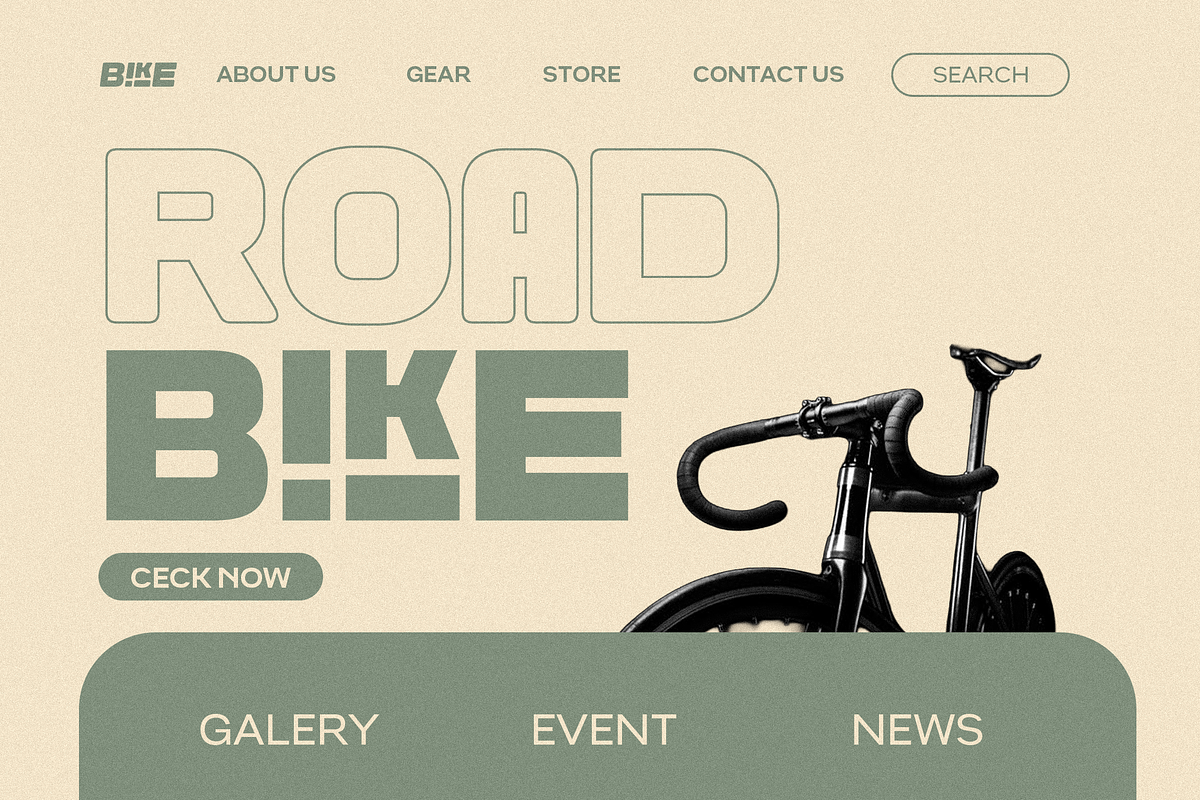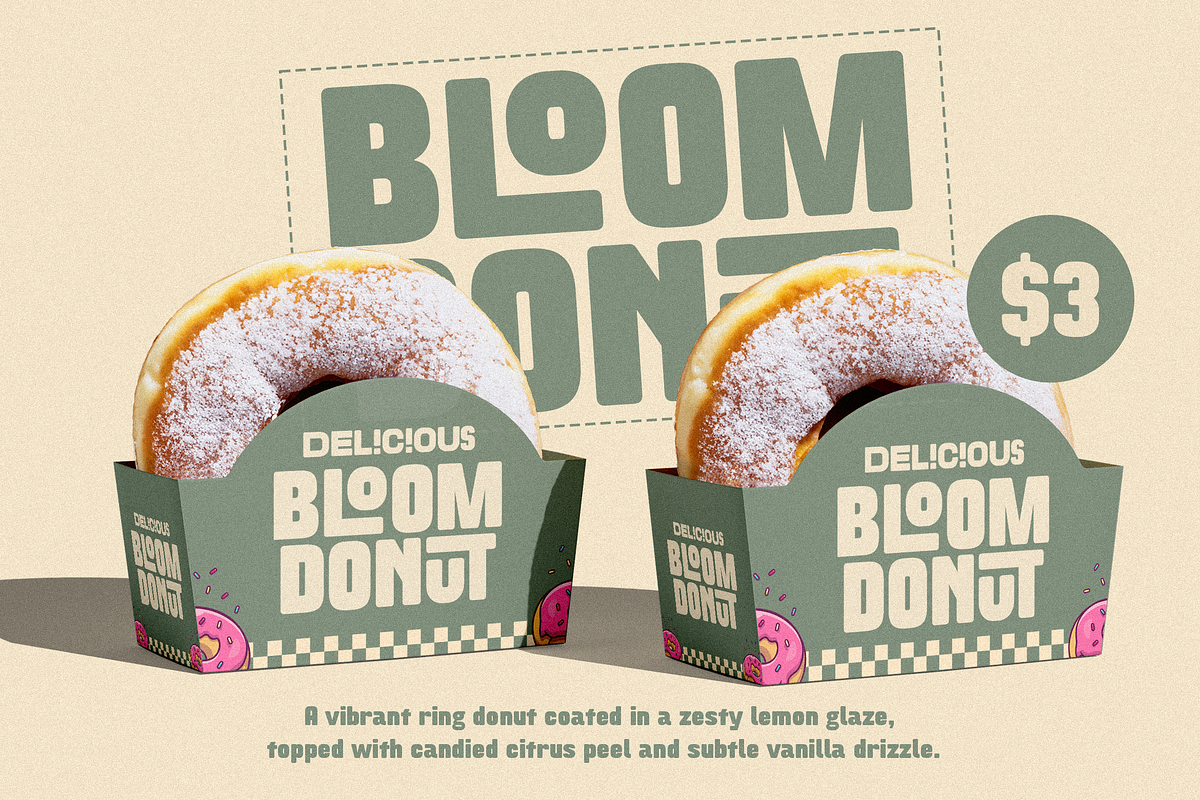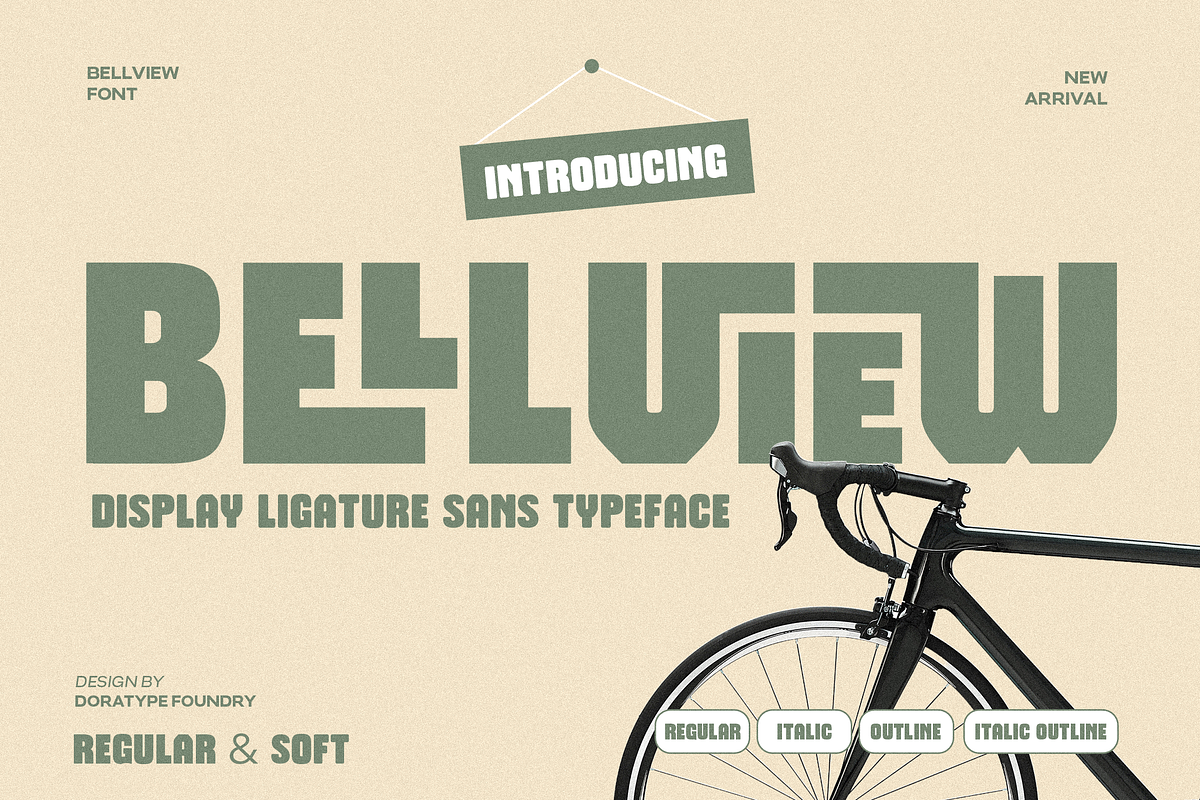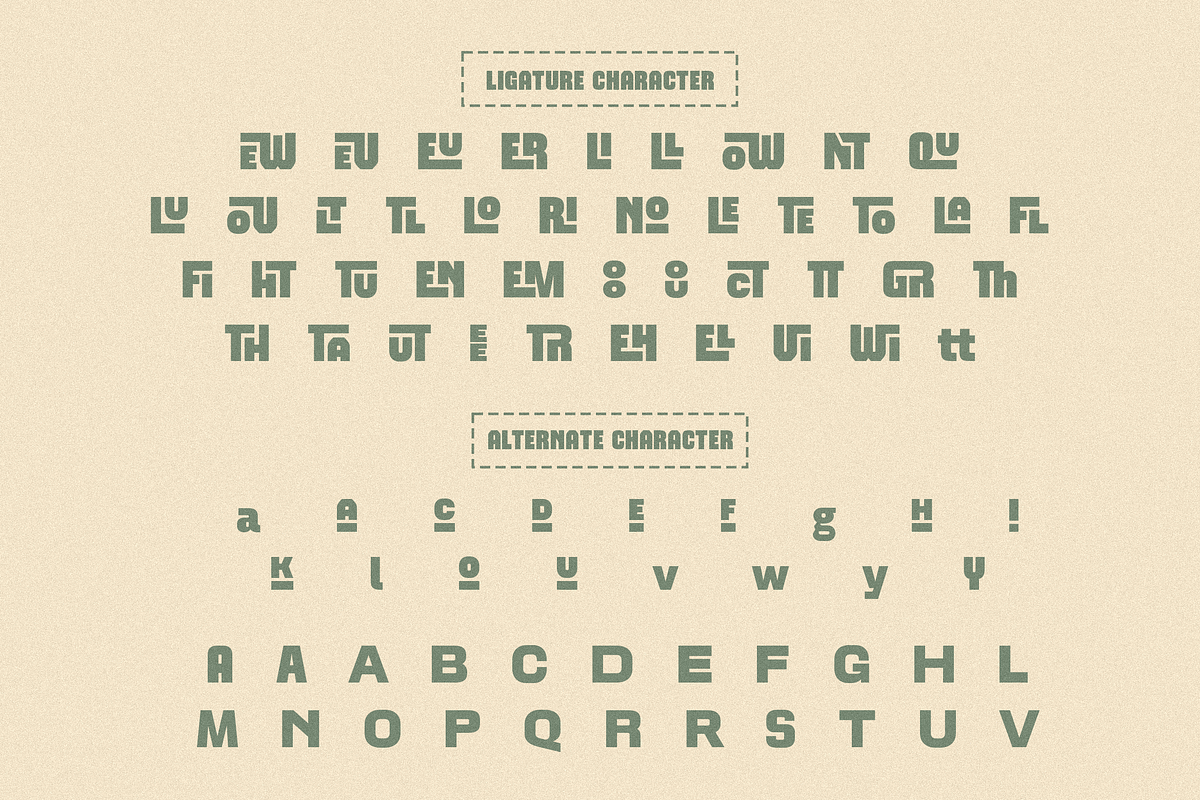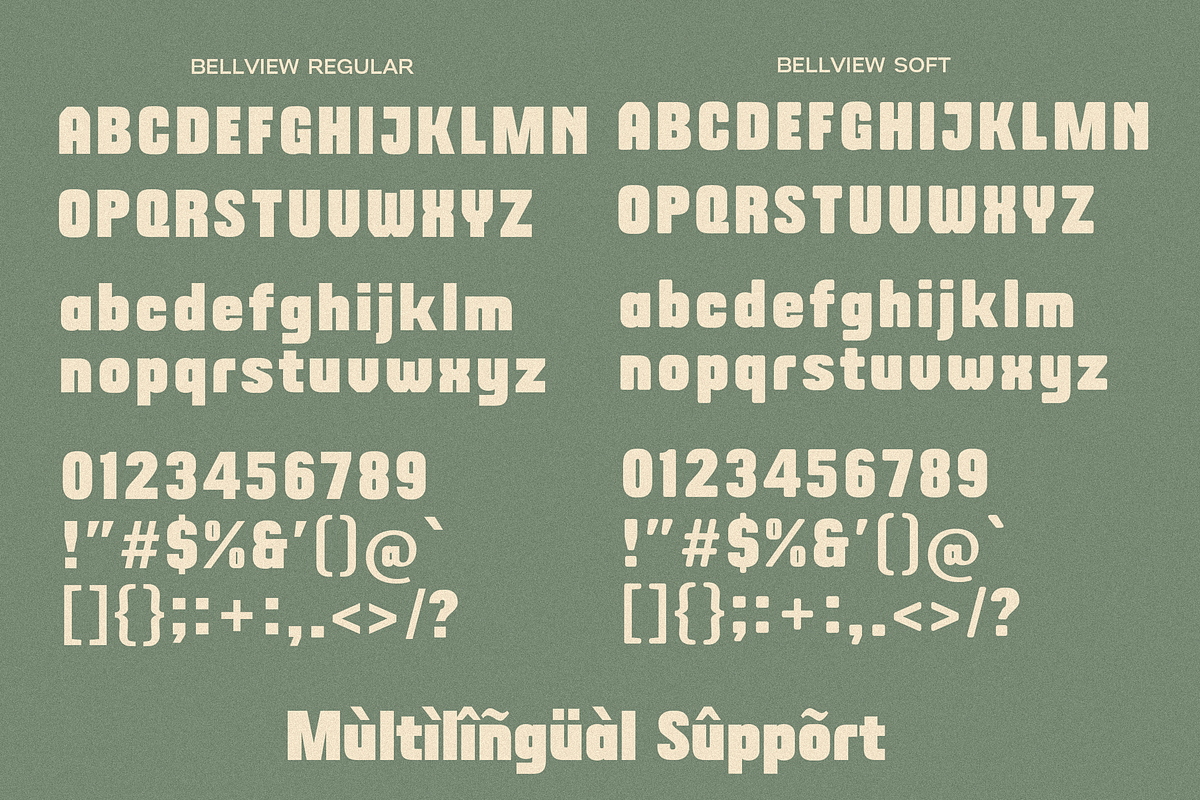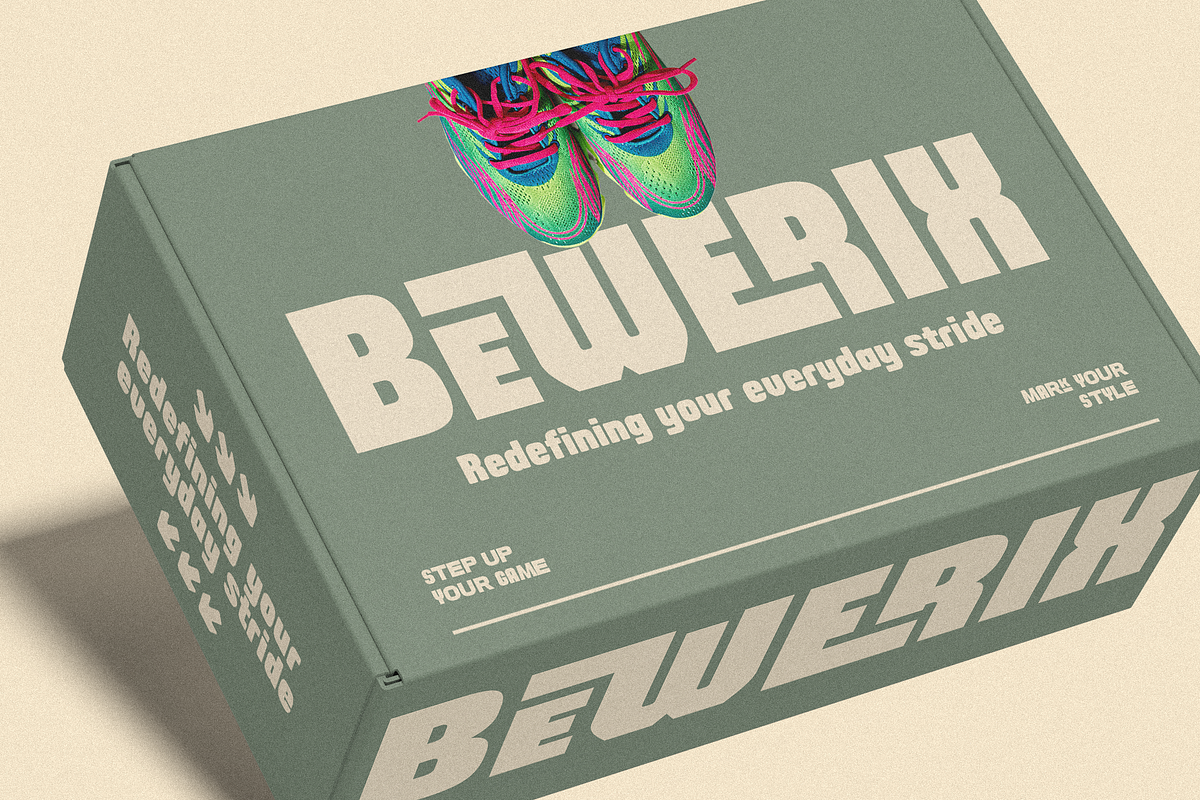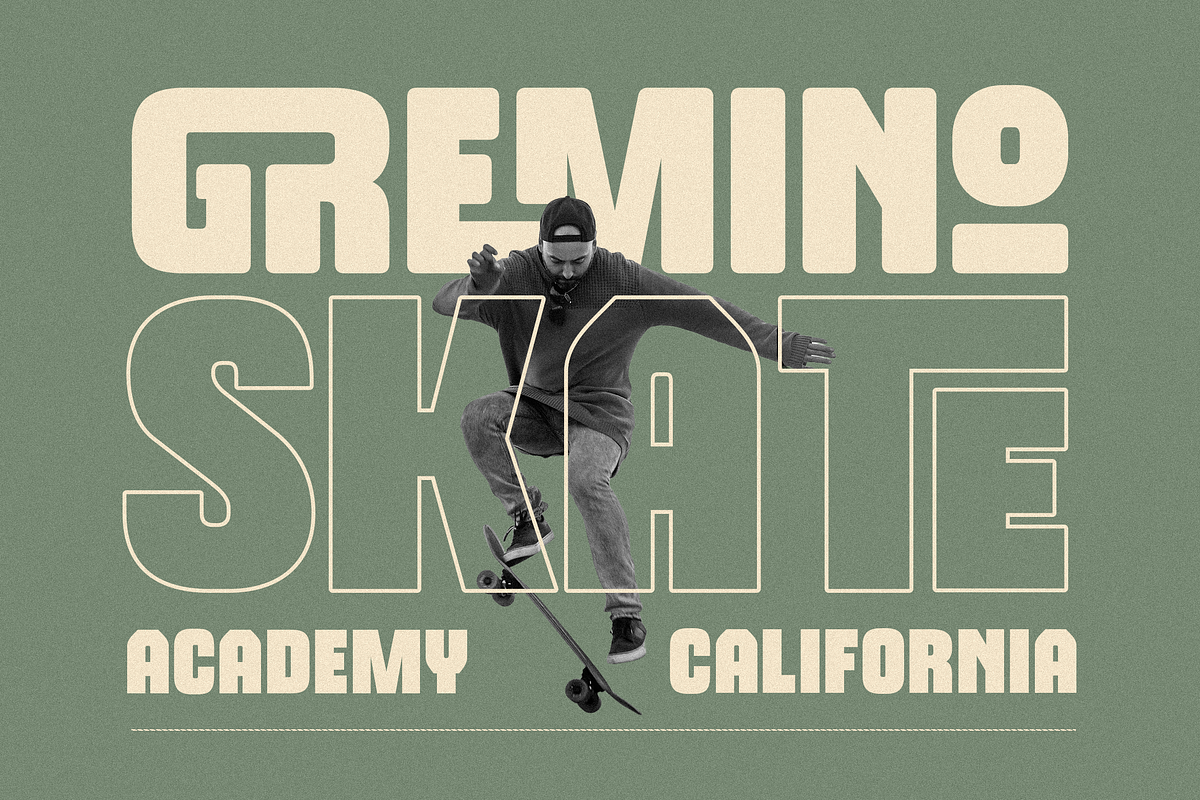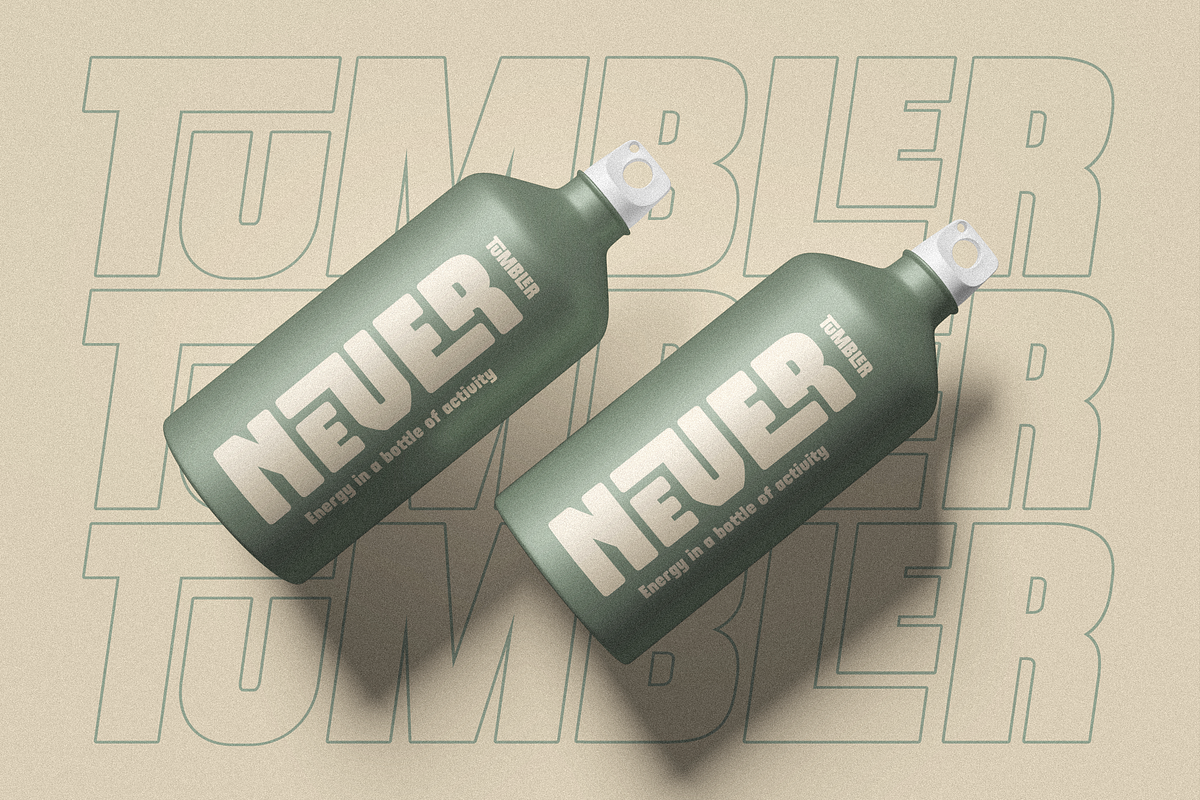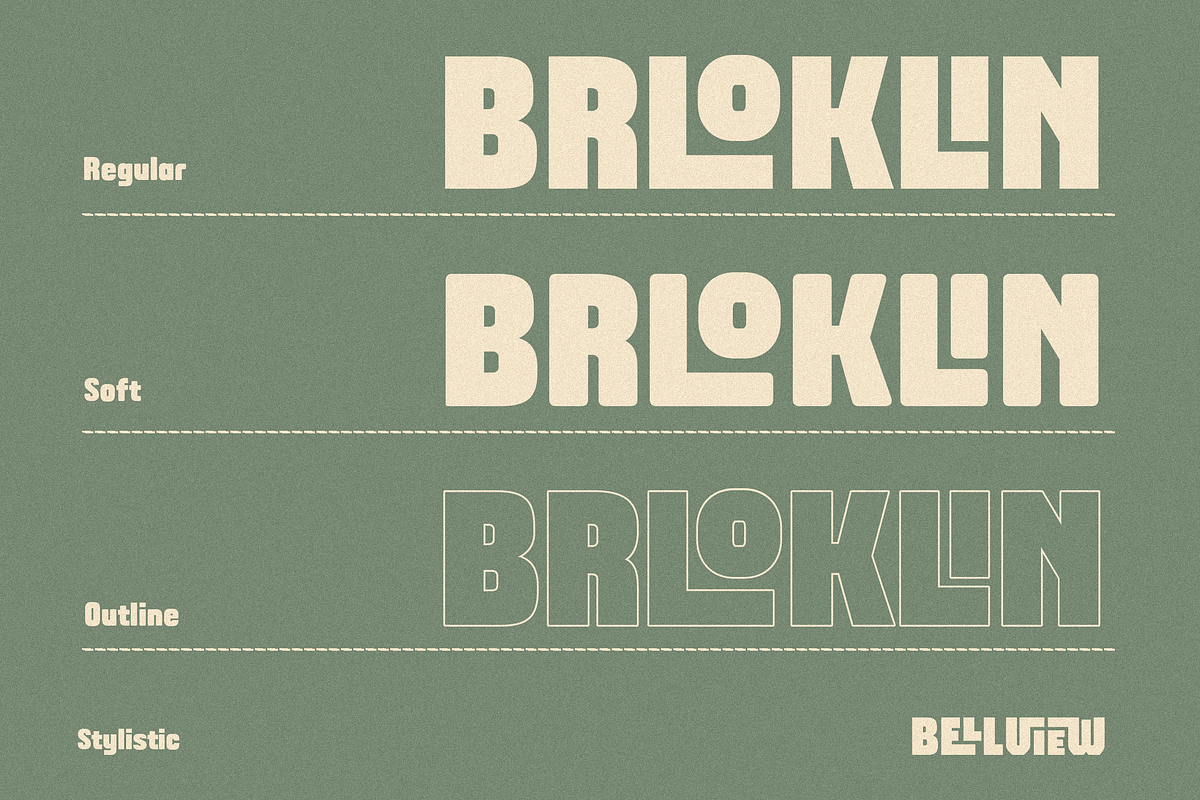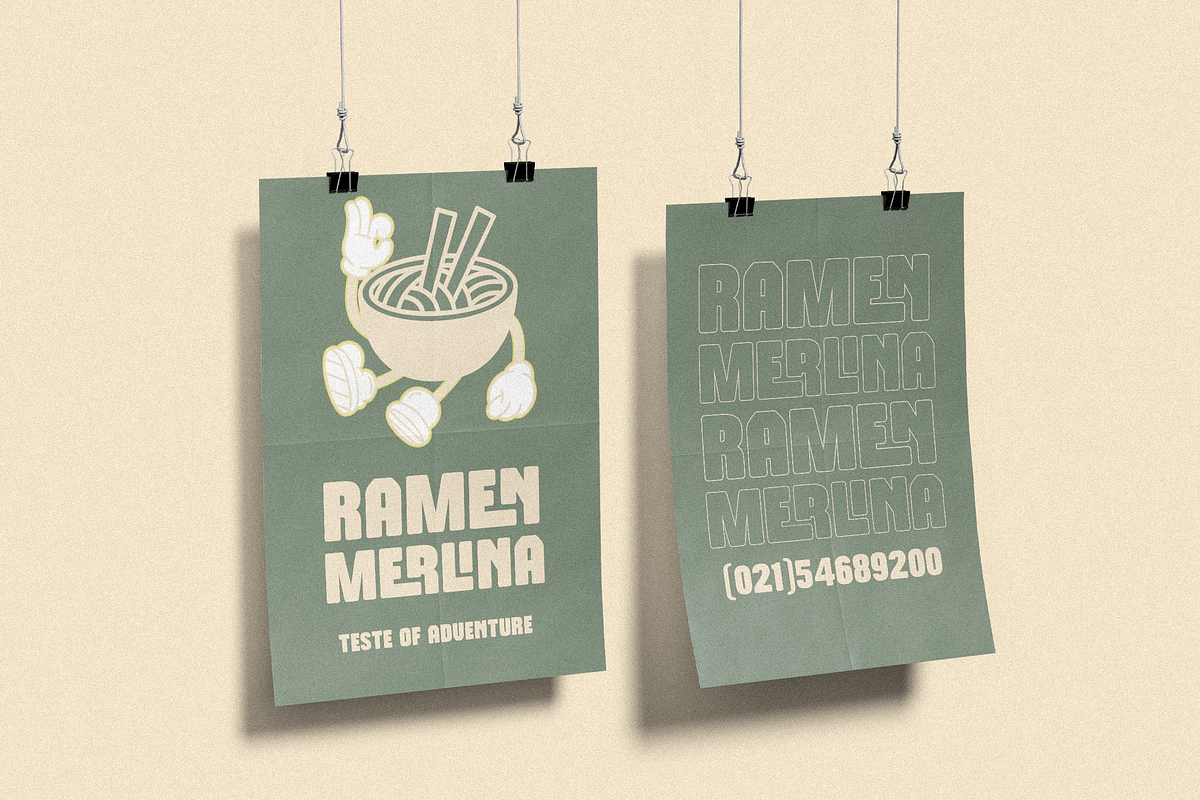
Bellview
Bellview is a display font characterized by its bold, sturdy, and modern aesthetic. Its letterforms—featuring bold, geometric shapes and distinctive ligatures—convey strength and personality while maintaining a clean, professional look.
This font is ideal for branding, logos, headlines, posters, packaging, apparel, and any design application requiring a bold, instantly recognizable appearance. Bellview offers a blend of robust classic style and a modern touch, making it versatile enough for a wide range of visual concepts.